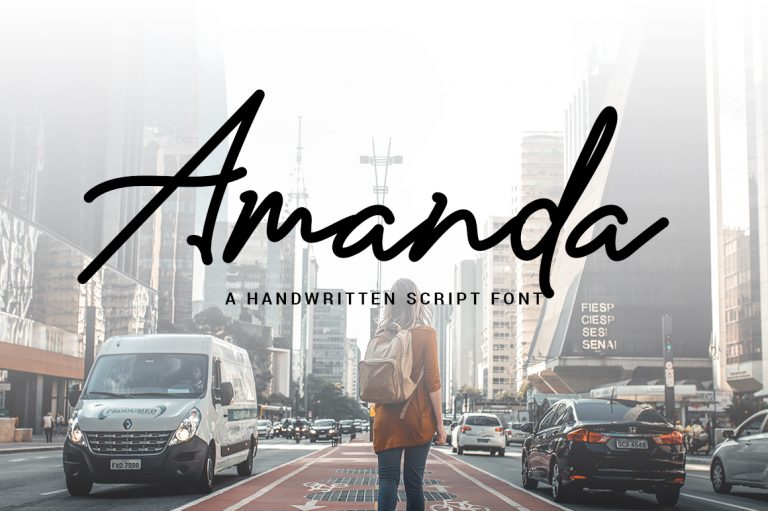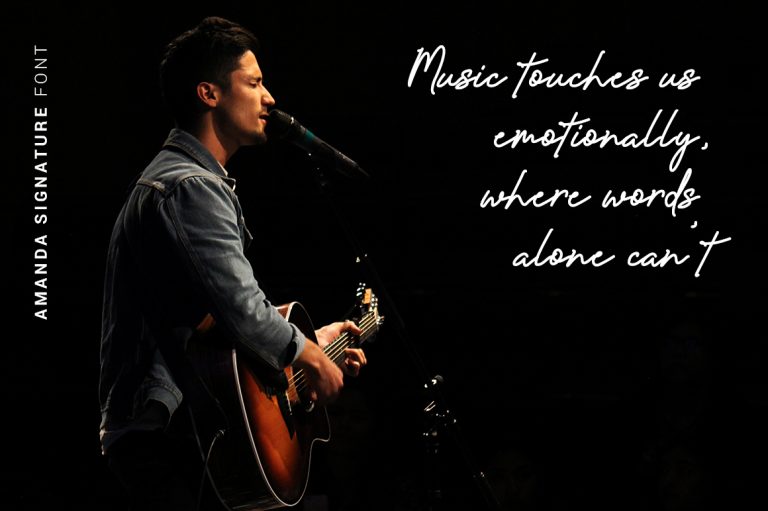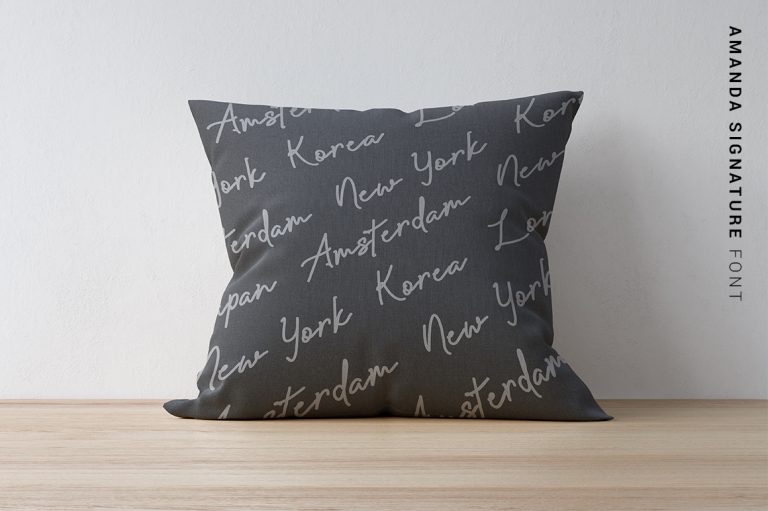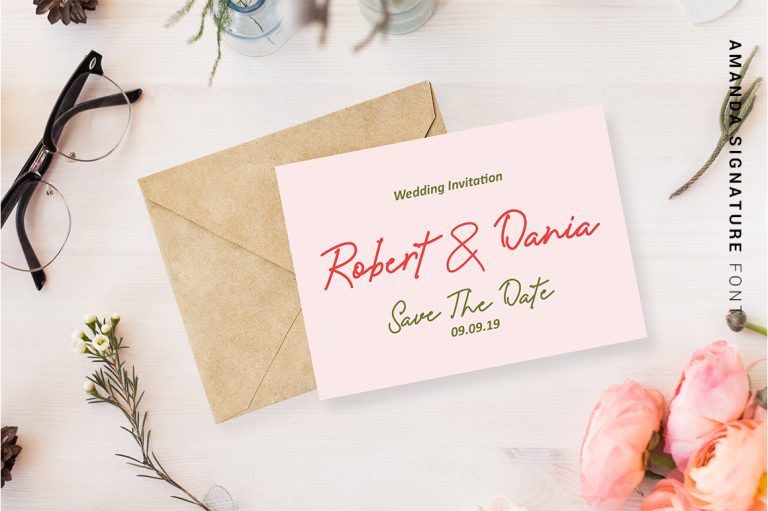
Amanda Signature Font
Amanda is a handwritten signature script with a natural & stylish flow. This collection of scripts is perfect for personal branding. It was made with the intention to be used by Photographers as a watermark for their Photography Business – Hence the name, ‘Portrait’. But, this works well for many applications. Everything from personal branding & wedding invitations to advertising could benefit from this collection of signature fonts.